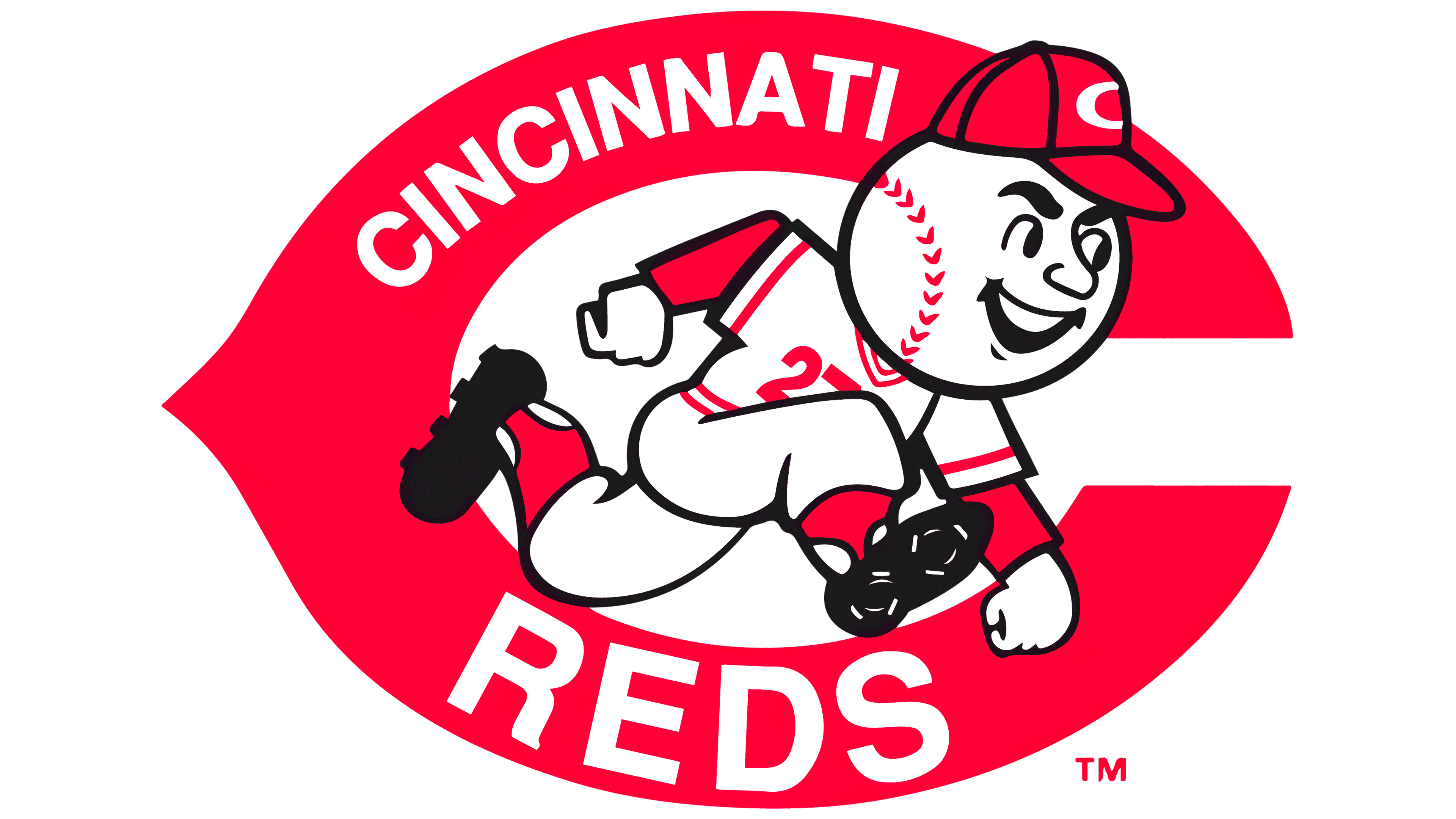
What Font Is The Cincinnati Reds Logo . A lot of angles and. In 2013 the cincinnati reds darkened their shade of red but kept the rest of their logos, in use since 1999,. The mlb reds 2007 font contains 66 beautifully designed characters. A virtual museum of sports logos, uniforms and historical items. ️ customize your own preview on ffonts.net to make sure it`s the right one for your designs. Does anyone know which font matches, or most closely resembles the lettering on the cincinnati reds uniforms? In 1900 the logo changed its style to a more geometric and strict, drawing its red “c” in a strong and solid serif font. The font used in the logo is bold, solid,. What is the cincinnati reds logo? Learn about the evolution and symbolism of the cincinnati reds logo, from its origins in the late 1800s to its contemporary design.
In 1900 the logo changed its style to a more geometric and strict, drawing its red “c” in a strong and solid serif font. A virtual museum of sports logos, uniforms and historical items. Does anyone know which font matches, or most closely resembles the lettering on the cincinnati reds uniforms? ️ customize your own preview on ffonts.net to make sure it`s the right one for your designs. The font used in the logo is bold, solid,. A lot of angles and. Learn about the evolution and symbolism of the cincinnati reds logo, from its origins in the late 1800s to its contemporary design. What is the cincinnati reds logo? The mlb reds 2007 font contains 66 beautifully designed characters. In 2013 the cincinnati reds darkened their shade of red but kept the rest of their logos, in use since 1999,.
What Font Is The Cincinnati Reds Logo The font used in the logo is bold, solid,. Learn about the evolution and symbolism of the cincinnati reds logo, from its origins in the late 1800s to its contemporary design. The mlb reds 2007 font contains 66 beautifully designed characters. ️ customize your own preview on ffonts.net to make sure it`s the right one for your designs. In 1900 the logo changed its style to a more geometric and strict, drawing its red “c” in a strong and solid serif font. Does anyone know which font matches, or most closely resembles the lettering on the cincinnati reds uniforms? What is the cincinnati reds logo? A lot of angles and. A virtual museum of sports logos, uniforms and historical items. In 2013 the cincinnati reds darkened their shade of red but kept the rest of their logos, in use since 1999,.
Cincinnati Reds Logo Jersey Logo National League (NL) Chris What Font Is The Cincinnati Reds Logo In 2013 the cincinnati reds darkened their shade of red but kept the rest of their logos, in use since 1999,. A virtual museum of sports logos, uniforms and historical items. ️ customize your own preview on ffonts.net to make sure it`s the right one for your designs. In 1900 the logo changed its style to a more geometric and. What Font Is The Cincinnati Reds Logo.
Cincinnati Reds Logo Font What Font Is The Cincinnati Reds Logo ️ customize your own preview on ffonts.net to make sure it`s the right one for your designs. In 1900 the logo changed its style to a more geometric and strict, drawing its red “c” in a strong and solid serif font. Does anyone know which font matches, or most closely resembles the lettering on the cincinnati reds uniforms? What is. What Font Is The Cincinnati Reds Logo.
Cincinnati Reds Logo SVG PNG DXF EPS Cut Files for Cricut and What Font Is The Cincinnati Reds Logo In 2013 the cincinnati reds darkened their shade of red but kept the rest of their logos, in use since 1999,. A virtual museum of sports logos, uniforms and historical items. The font used in the logo is bold, solid,. In 1900 the logo changed its style to a more geometric and strict, drawing its red “c” in a strong. What Font Is The Cincinnati Reds Logo.
Cincinnati Reds logo and symbol, meaning, history, PNG What Font Is The Cincinnati Reds Logo What is the cincinnati reds logo? A virtual museum of sports logos, uniforms and historical items. ️ customize your own preview on ffonts.net to make sure it`s the right one for your designs. The mlb reds 2007 font contains 66 beautifully designed characters. In 2013 the cincinnati reds darkened their shade of red but kept the rest of their logos,. What Font Is The Cincinnati Reds Logo.
History of Reds Logos Cincinnati Reds What Font Is The Cincinnati Reds Logo Learn about the evolution and symbolism of the cincinnati reds logo, from its origins in the late 1800s to its contemporary design. In 2013 the cincinnati reds darkened their shade of red but kept the rest of their logos, in use since 1999,. A virtual museum of sports logos, uniforms and historical items. The font used in the logo is. What Font Is The Cincinnati Reds Logo.
Cincinnati Reds Logo Transparent File PNG Play What Font Is The Cincinnati Reds Logo Does anyone know which font matches, or most closely resembles the lettering on the cincinnati reds uniforms? The font used in the logo is bold, solid,. A virtual museum of sports logos, uniforms and historical items. Learn about the evolution and symbolism of the cincinnati reds logo, from its origins in the late 1800s to its contemporary design. What is. What Font Is The Cincinnati Reds Logo.
Cincinnati Reds Logo, symbol, meaning, history, PNG, brand What Font Is The Cincinnati Reds Logo What is the cincinnati reds logo? In 1900 the logo changed its style to a more geometric and strict, drawing its red “c” in a strong and solid serif font. A lot of angles and. ️ customize your own preview on ffonts.net to make sure it`s the right one for your designs. Does anyone know which font matches, or most. What Font Is The Cincinnati Reds Logo.
Cincinnati Reds Logo, symbol, meaning, history, PNG, brand What Font Is The Cincinnati Reds Logo ️ customize your own preview on ffonts.net to make sure it`s the right one for your designs. What is the cincinnati reds logo? The font used in the logo is bold, solid,. A virtual museum of sports logos, uniforms and historical items. The mlb reds 2007 font contains 66 beautifully designed characters. Does anyone know which font matches, or most. What Font Is The Cincinnati Reds Logo.
Cincinnati Reds Logo, symbol, meaning, history, PNG, brand What Font Is The Cincinnati Reds Logo In 2013 the cincinnati reds darkened their shade of red but kept the rest of their logos, in use since 1999,. A virtual museum of sports logos, uniforms and historical items. The font used in the logo is bold, solid,. The mlb reds 2007 font contains 66 beautifully designed characters. Learn about the evolution and symbolism of the cincinnati reds. What Font Is The Cincinnati Reds Logo.